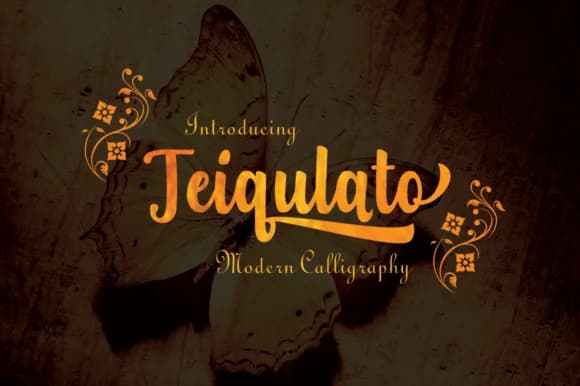
1 / 9About Teiqulato Script Font
Teiqulato Script by Fajry's Type is a modern calligraphy font that blends elegant letterforms with contemporary handwritten sensibility. The typeface carries an organic flow while maintaining refined proportions, making it equally suitable for professional and creative applications. Its fluid strokes work particularly well across wedding invitation suites, upscale product labeling for artisanal goods, and sophisticated brand identity materials that demand a personal touch. The font excels in scenarios where authentic handwriting brings credibility and charm, from luxury greeting card design to boutique retail packaging and restaurant menu typography. Whether you're developing comprehensive brand guidelines for a luxury startup or creating coordinated stationery systems for established enterprises, Teiqulato Script delivers visual impact across applications without sacrificing legibility. The letterforms maintain their character at both display and text sizes, offering practical versatility across different design contexts and media. This typeface represents an ideal choice for modern brands targeting discerning audiences who deeply appreciate craft and meticulous attention to detail. The handwritten quality suggests authenticity while the refined execution ensures professionalism, a balance that distinguishes quality work from generic applications. Download Teiqulato Script from Creative Fabrica to incorporate handcrafted elegance into your next project.
Teiqulato Script Font is a script font that shines as a display or heading face. Pair it with a clean sans-serif or serif font for body text β the contrast creates a clear hierarchy while the two styles stay balanced and easy to read.
Teiqulato Script Font
by Fajry's Type